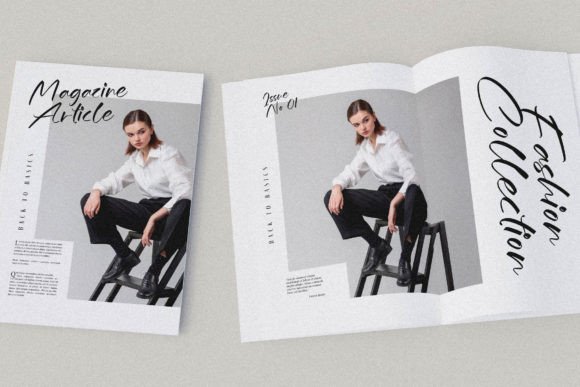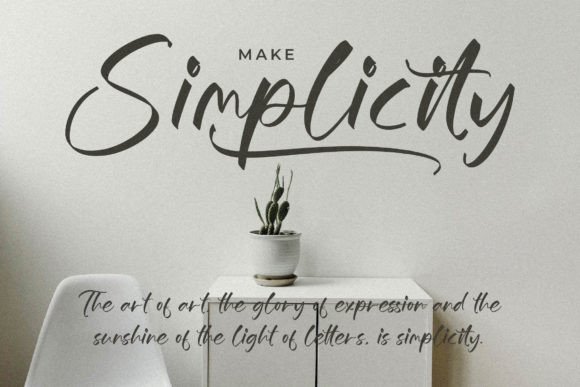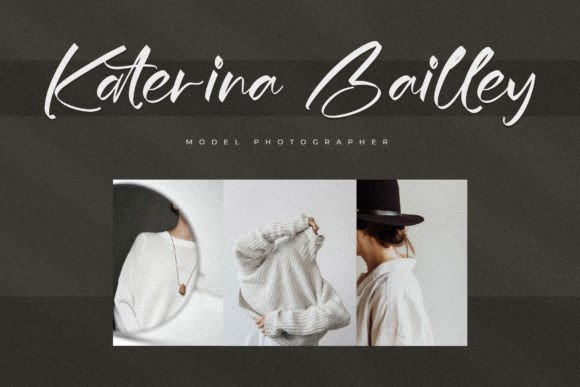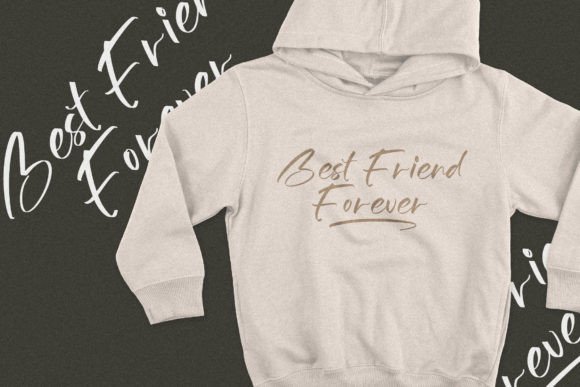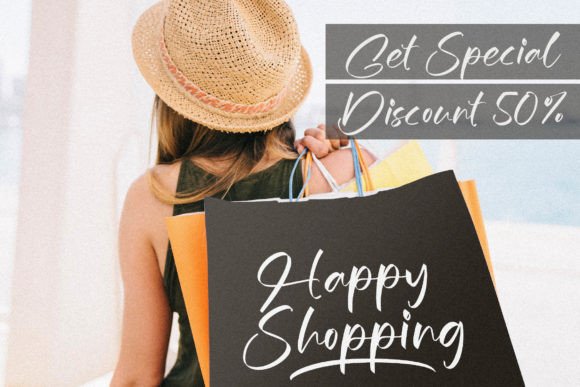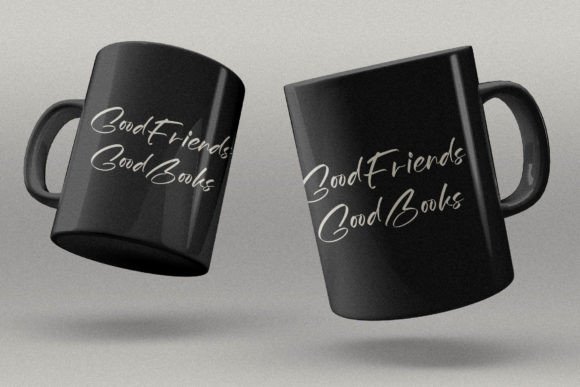
Introduction to Balpethy Font
Balpethy – Modern Script Font suitable for any projects such as logos, branding projects, homeware designs, product packaging, mugs, quotes, posters, shopping bags, t-shirts, book covers, name cards, invitation cards, greeting cards, labels, photography, watermark, special events, and all your other lovely projects that need a beautiful script taste.
Key Features of Balpethy Font
Why Choose Balpethy Font?
Balpethy Font offers exceptional quality and versatility, making it a valuable addition to your design toolkit. Whether you’re creating for personal projects or commercial use, Balpethy Font delivers professional results.